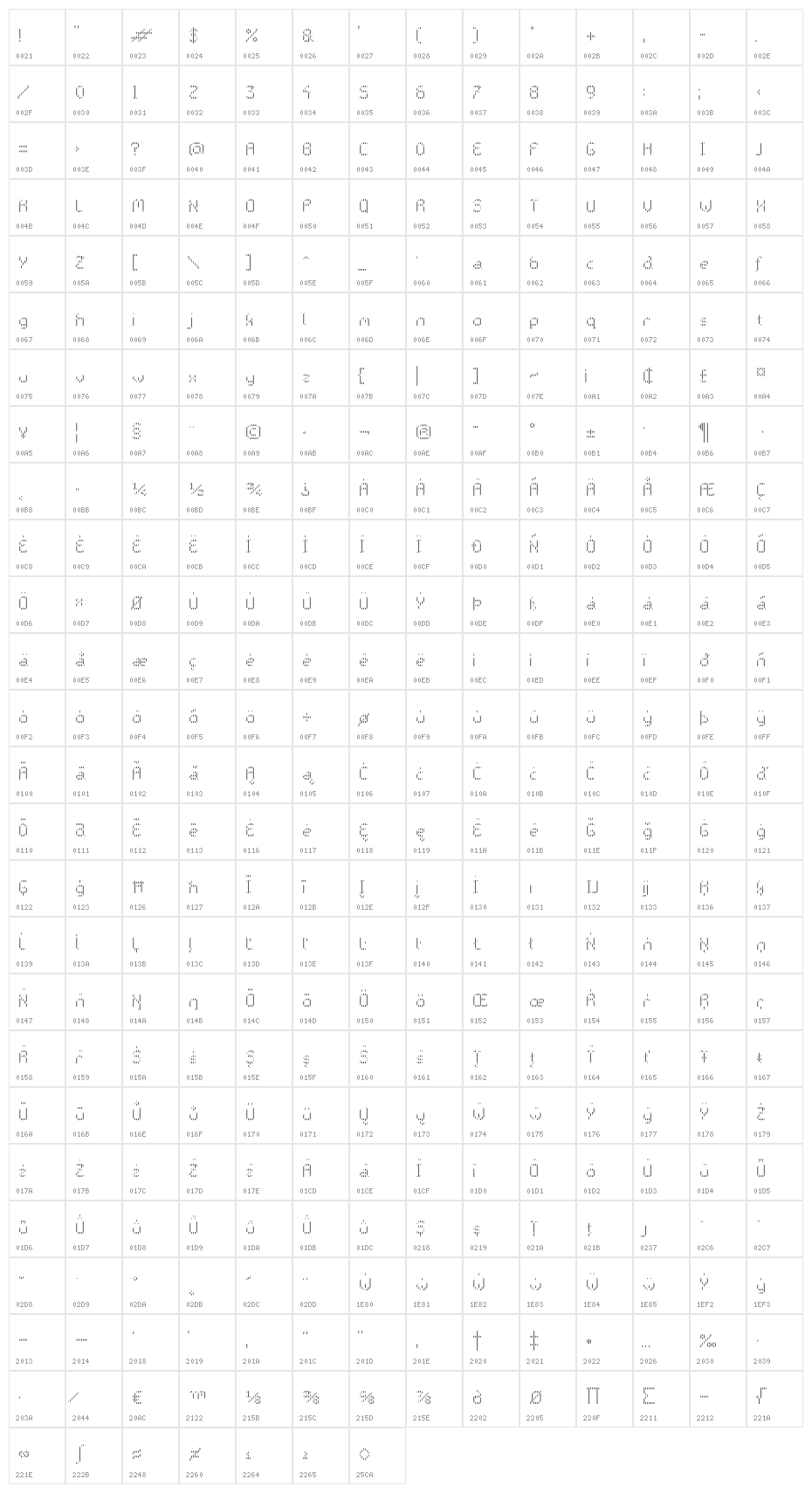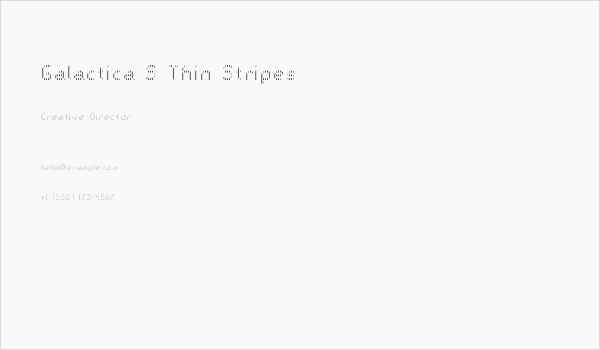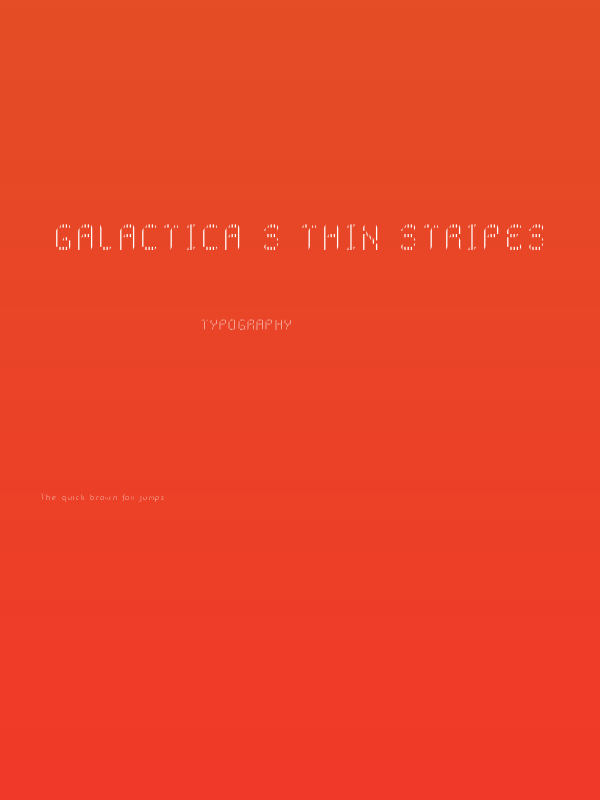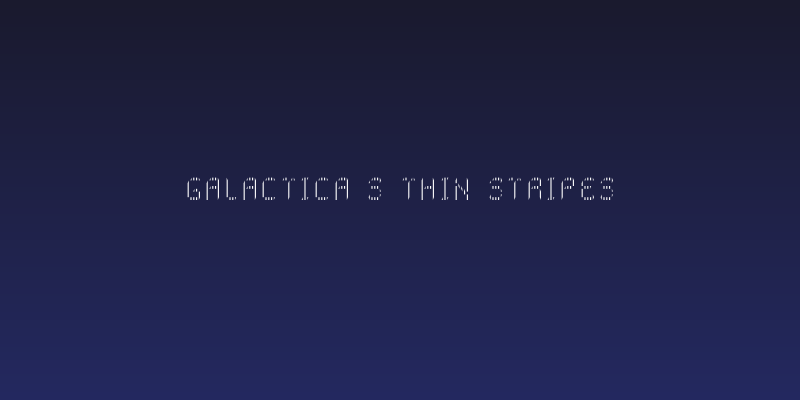
Galactica S Thin Stripes Font
Galactica S Thin Stripes Description
This font features a futuristic and digital aesthetic, characterized by its unique use of thin, vertical stripes to form each character. The design is highly geometric, with a consistent pattern that gives it a distinct, modern look. The uppercase and lowercase letters maintain a uniform style, while the numerals and special characters seamlessly integrate into the overall design. The font's striped pattern creates a sense of movement and rhythm, making it visually striking and ideal for projects that require a contemporary and tech-inspired feel.
| Proposed Projects | Ideal for tech branding, digital interfaces, sci-fi themed designs, and modern advertising. |